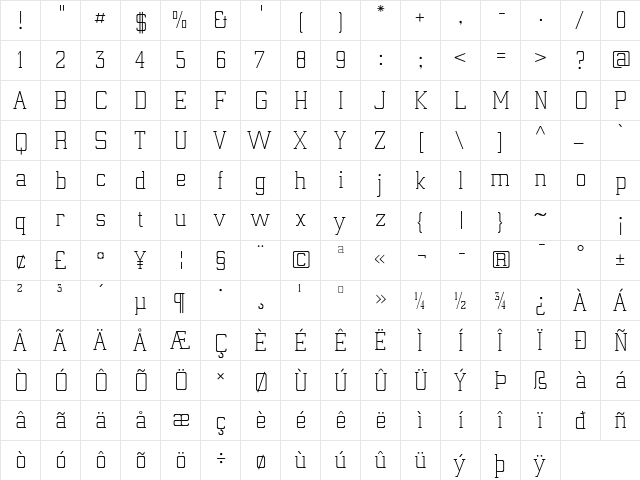
Electrum ADF Exp Lt Regular
| Foundry | Arkandis Digital Foundry. |
| Designer | Hirwen HARENDAL |
Design Context for Electrum ADF Exp Lt Typeface
Electrum ADF Exp Lt is a composed and adaptable typeface that performs quietly and consistently across a wide range of design contexts. Its slender proportions lend an understated elegance to any composition.